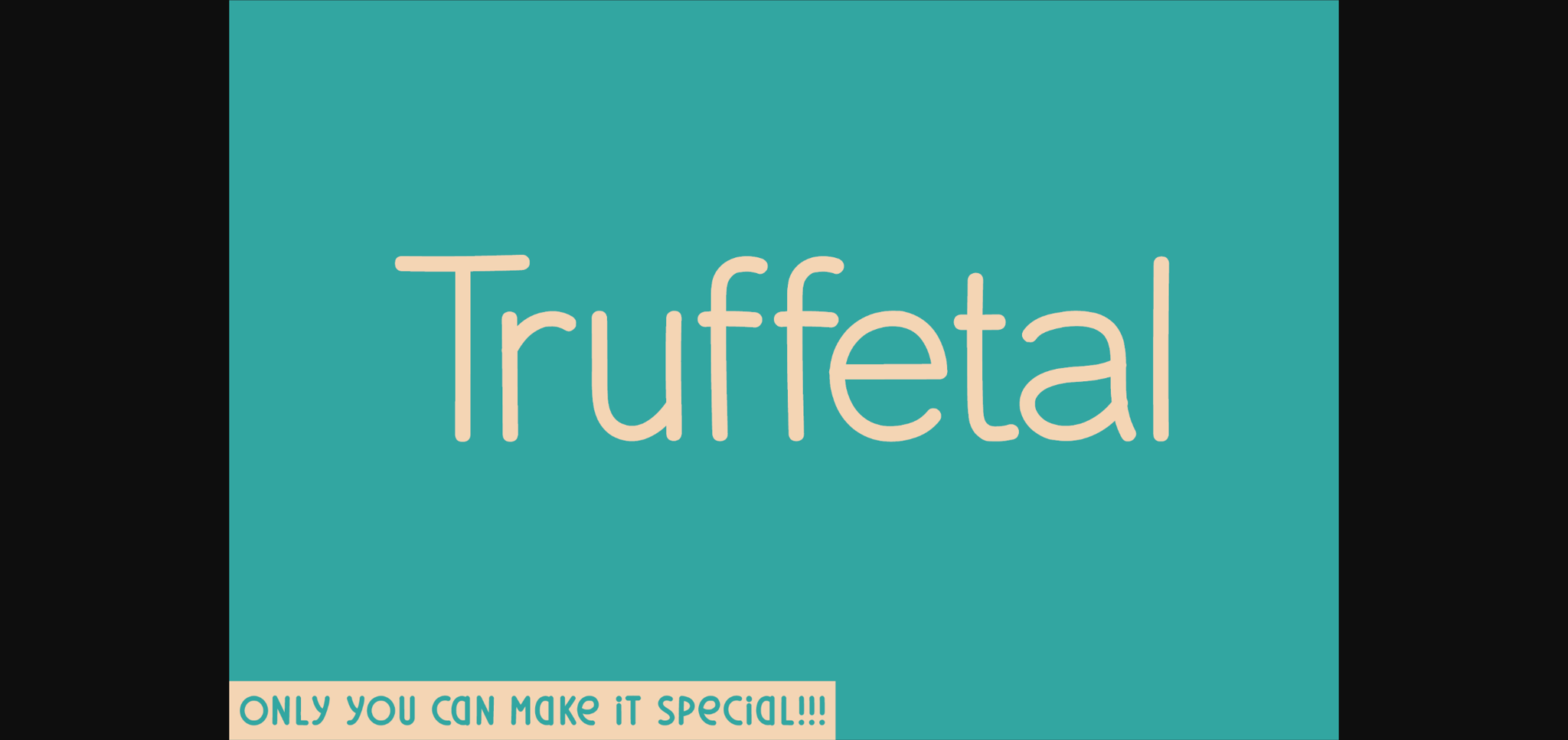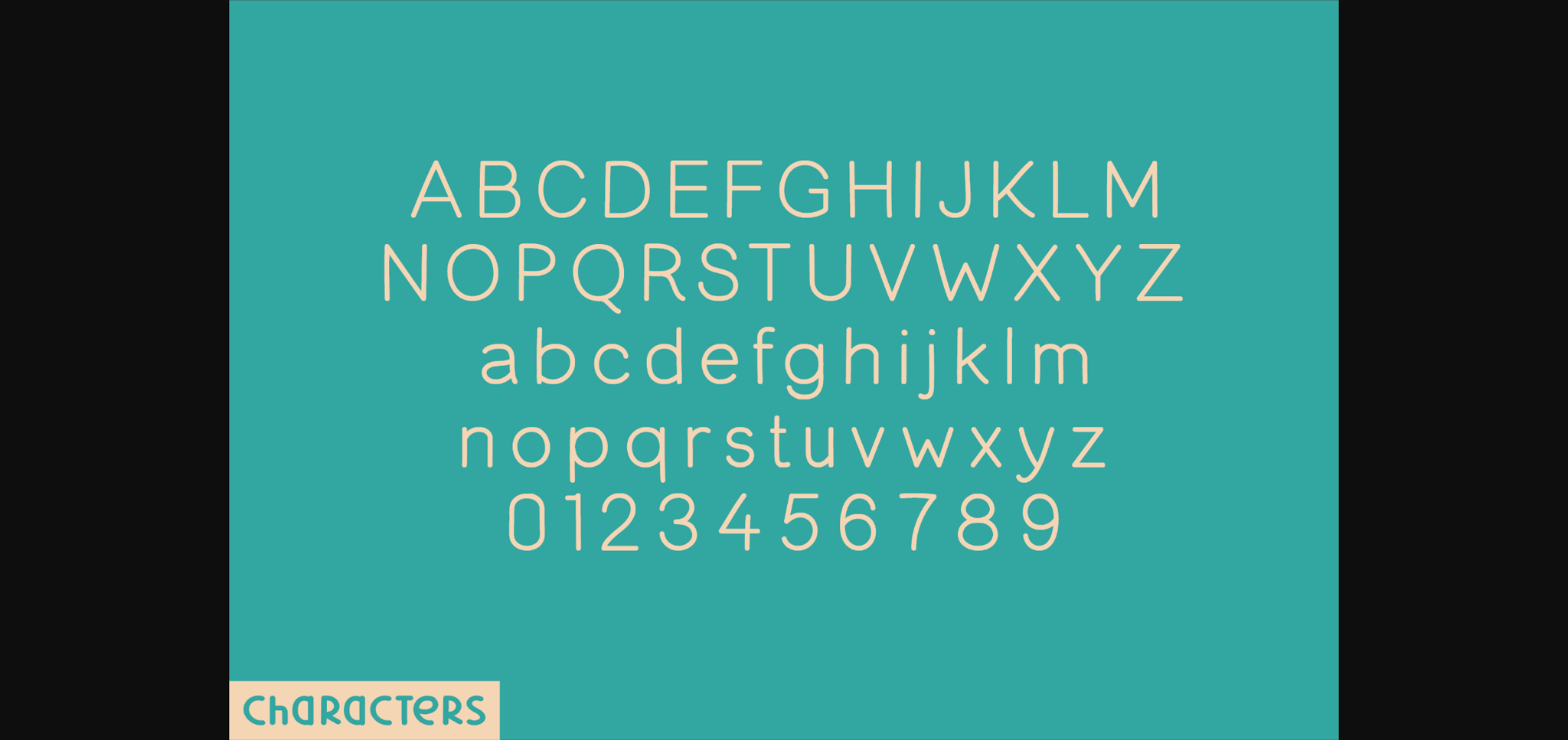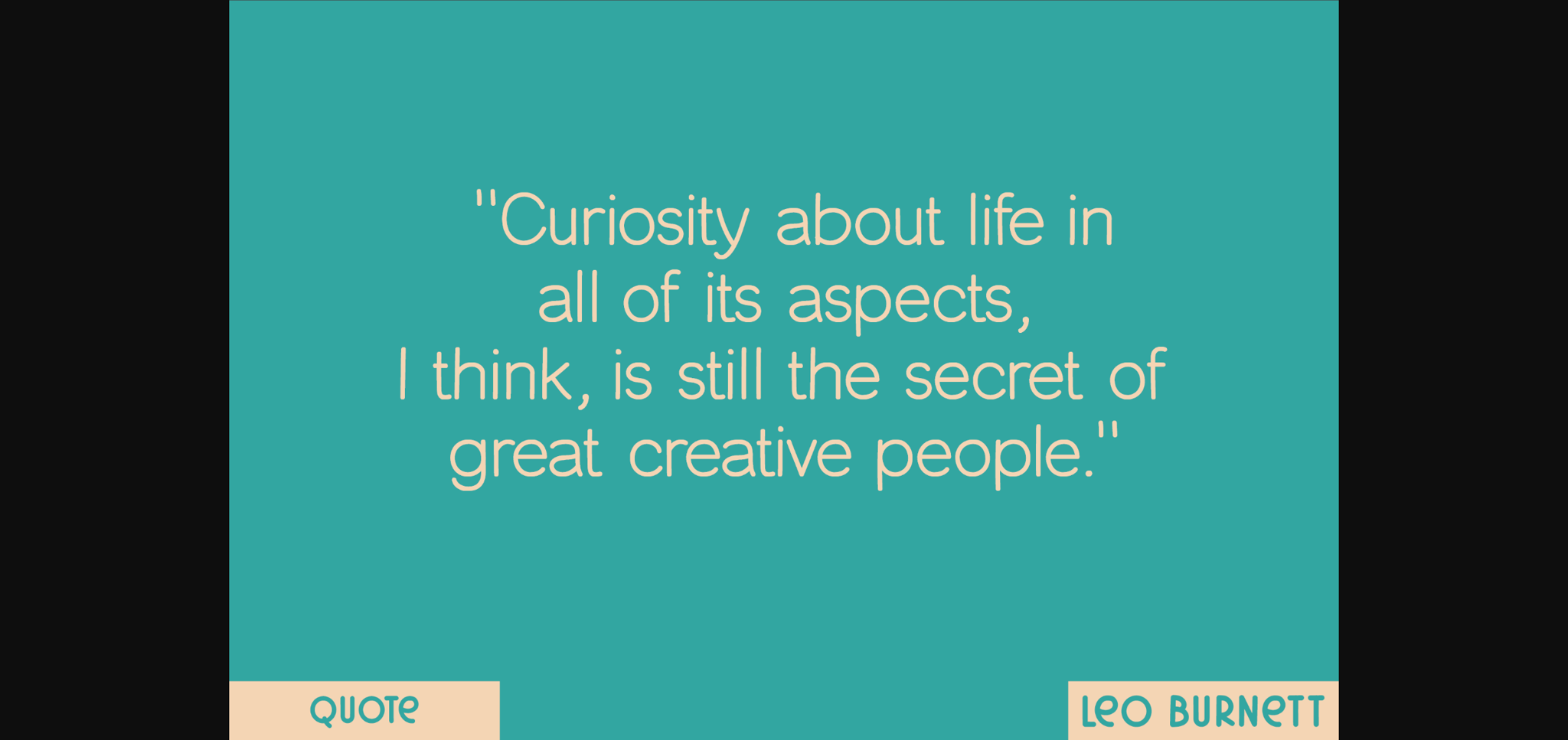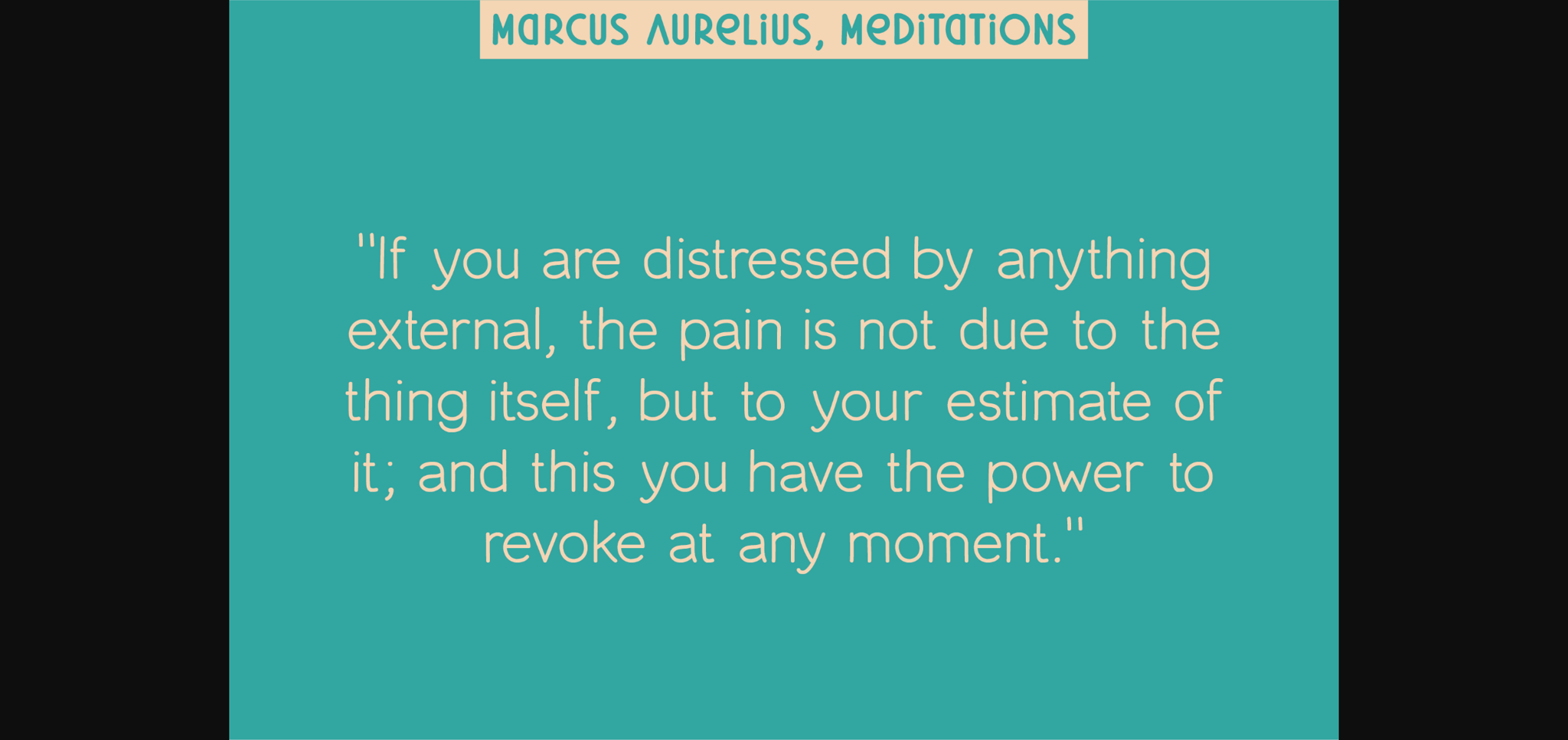
Truffetal Font
About Truffetal Font
Introducing Truffetal: a captivating, handwritten sans serif font, artfully incorporating uppercase, lowercase, and numbered elements. Each letter finale is crafted with exceptional form, leaving a delightful yet assertive aesthetic. Adorn your designs with Truffetal for a touch of unrivaled individuality, adding visual intrigue and stunning uniqueness to your projects. This font is the perfect embellishment for designs demanding a signature style.